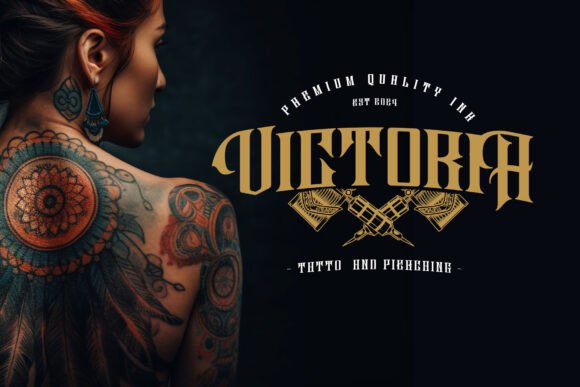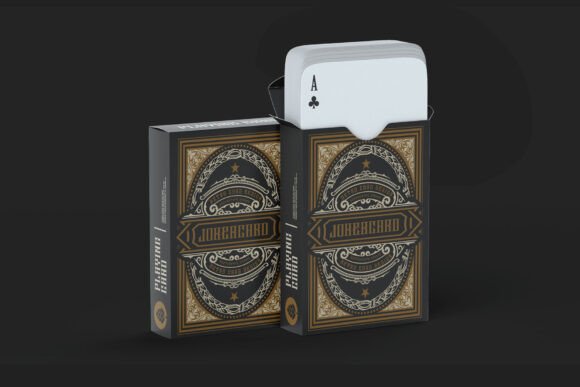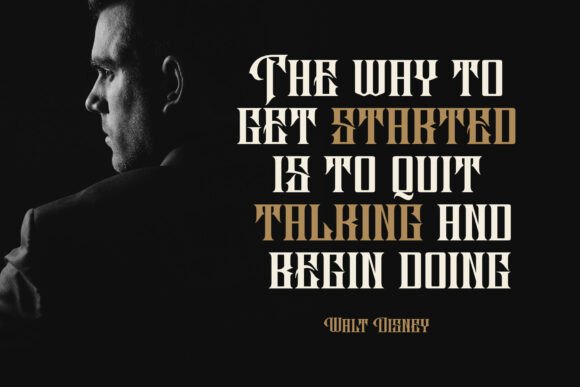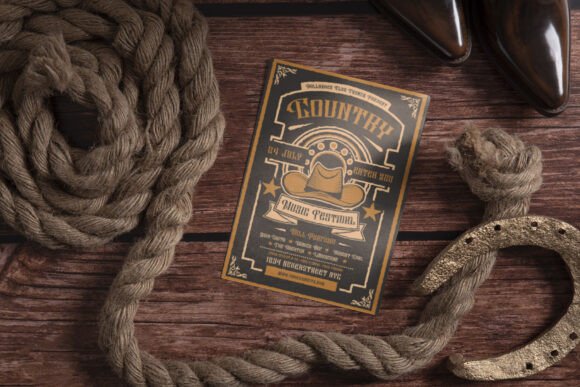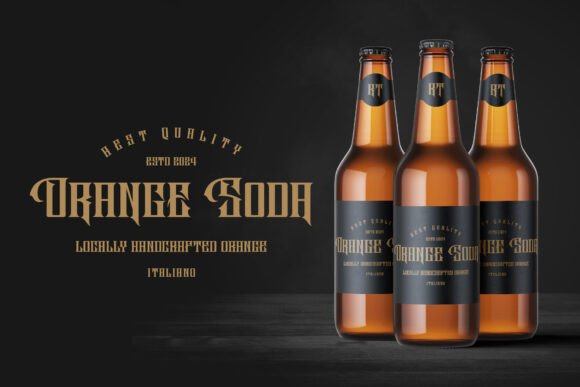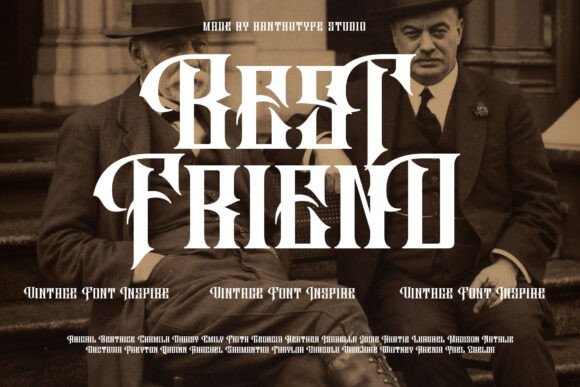
Discover the Bold and Striking Antrope Font: Elevate Your Designs with Confidence
Are you on the hunt for a font that exudes confidence and makes a statement? Look no further than the Antrope Font, a bold and thick lettered blackletter font that’s sure to take your designs to the next level. With its robust and striking appearance, Antrope is the perfect addition to any project, whether you’re a designer, crafter, or DIY enthusiast.
What is Antrope Font?
Antrope is a modern take on traditional blackletter fonts, characterized by its bold and thick lettering. This font is designed to make a statement, with a confident and assertive presence that’s sure to grab attention. Whether you’re working on a logo, poster, or social media graphic, Antrope is the perfect choice for adding a touch of drama and flair.
Key Features of Antrope Font
So, what sets Antrope apart from other fonts? Here are just a few of its key features:
- Bold and Thick Lettering: Antrope’s bold and thick lettering makes it perfect for headlines, titles, and other applications where you want to make a statement.
- Blackletter Style: Antrope’s blackletter style gives it a distinctive and eye-catching appearance that’s sure to stand out from the crowd.
Why Choose Antrope Font?
So, why should you choose Antrope for your next project? Here are just a few reasons:
- Confidence Boost: Antrope’s bold and striking appearance is sure to give your designs a confidence boost. Whether you’re working on a personal project or a client’s, Antrope will help you make a statement.
- Versatility: Antrope is a versatile font that can be used in a wide range of applications, from logos and posters to social media graphics and more.
How to Use Antrope Font in Your Designs
Ready to start using Antrope in your designs? Here are a few tips to get you started:
- Pair it with a contrasting font: Antrope’s bold and striking appearance makes it perfect for pairing with a contrasting font. Try pairing it with a clean and simple sans-serif font for a striking contrast.
- Use it for headlines and titles: Antrope’s bold and thick lettering makes it perfect for headlines and titles. Use it to add a touch of drama and flair to your designs.
- Experiment with swashes and glyphs: With its PUA encoding, Antrope gives you access to a wide range of swashes and glyphs. Experiment with these to add unique flourishes to your designs.